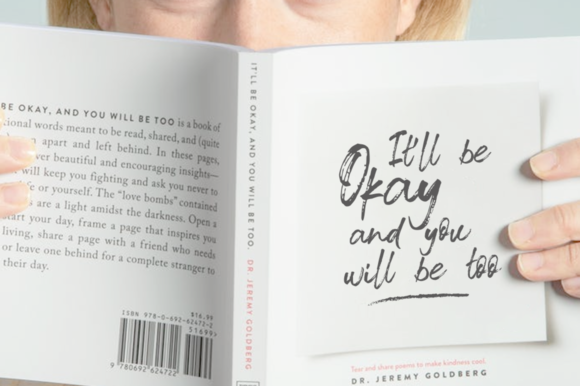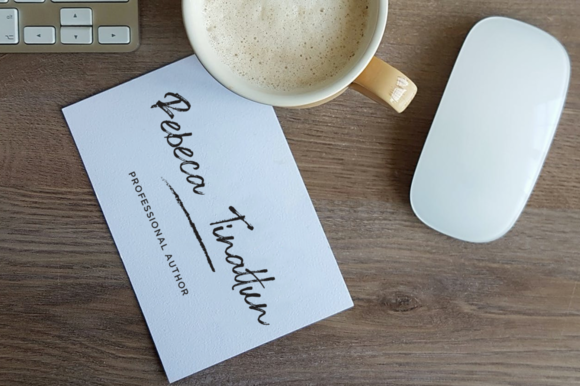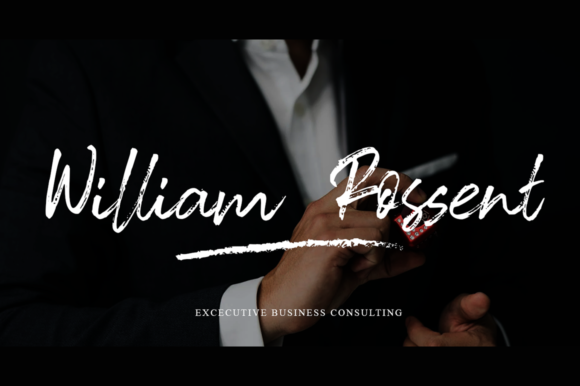
The Ballinese Font: A Futuristic Brushed Handwritten Style to Elevate Your Designs
I’ll never forget the time I was working on a project for a trendy boutique hotel, and I just couldn’t find the right font to capture their modern, eclectic vibe. The client wanted something that felt fresh, youthful, and Instagram-worthy. That’s when I stumbled upon the Ballinese font, and it instantly became the perfect fit. In this article, I’ll share my love for this unique font, its features, and how to make the most of it in your designs.
My Honest Review of Ballinese
Here’s what I love about Ballinese:
- ✨ Futuristic and modern feel: Ballinese has a sleek, contemporary look that’s perfect for brands that want to appear cutting-edge.
- ✅ Brushed handwritten style: The font’s subtle imperfections and texture give it a human touch that’s hard to replicate with traditional fonts.
- 🌈 Versatility: Ballinese works beautifully in a variety of contexts, from headings and titles to body text and quotes.
While Ballinese is an amazing font, it’s not without its quirks. Here are a few things to keep in mind:
- 🤔 Legibility at small sizes: Like many script fonts, Ballinese can be tricky to read at very small sizes. Make sure to test it in different contexts to ensure it’s legible.
- ⚠️ Limited use in formal contexts: Ballinese is a highly stylized font, so it’s best suited for creative, informal projects. It might not be the best choice for formal documents or corporate branding.
To take full advantage of Ballinese’s OpenType features, experiment with different stylistic alternates and swashes. You can also adjust the font size, color, and spacing to create a unique look.
The Story Behind Ballinese
Ballinese was designed by a young, talented typographer who wanted to create a font that captured the essence of modern, urban living. Inspired by the vibrant streets of Bali, the designer aimed to craft a font that felt fresh, youthful, and full of energy.
| Does Ballinese support OpenType features? | Yes, Ballinese takes full advantage of OpenType features, including ligatures, stylistic sets, and swashes. Experiment with these features to create unique and creative designs. |
| Is Ballinese suitable for body text? | While Ballinese is a beautiful font, it’s best suited for headings, titles, and short paragraphs. For longer body text, you may want to choose a more traditional font for better readability. |